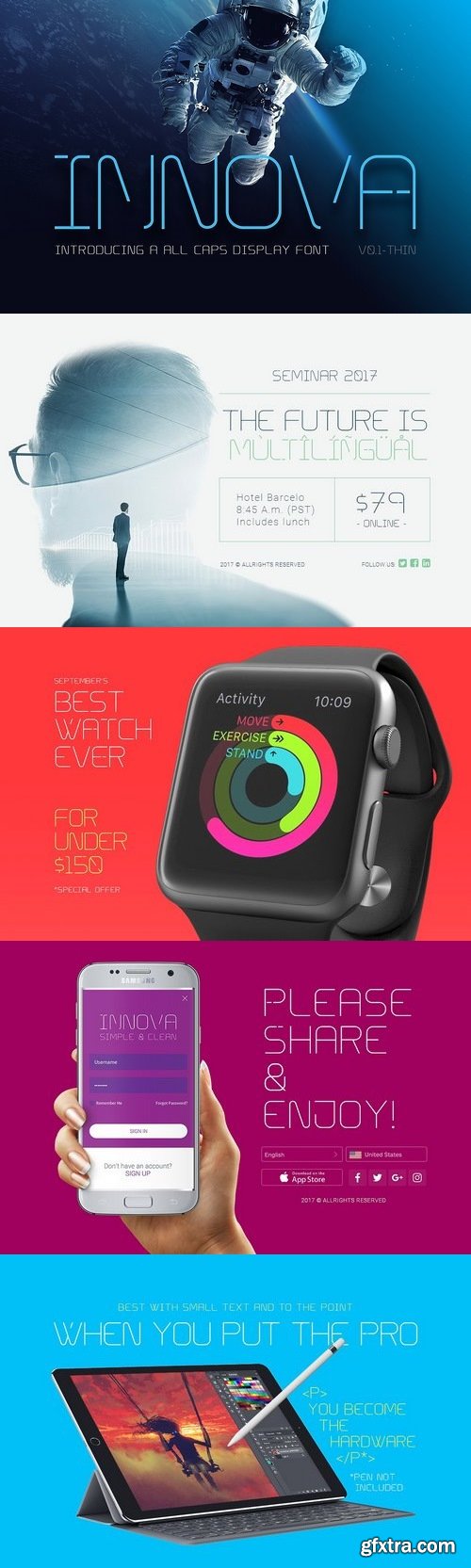
Innova is a thin line all caps style inspired display font that is perfect for short strong modern words for tech genre or innovation related themes, the file includes .OTF format./1810537-Innova-All-Caps-Font
- It comes with 187 glyphs + some international characters for multiple language support